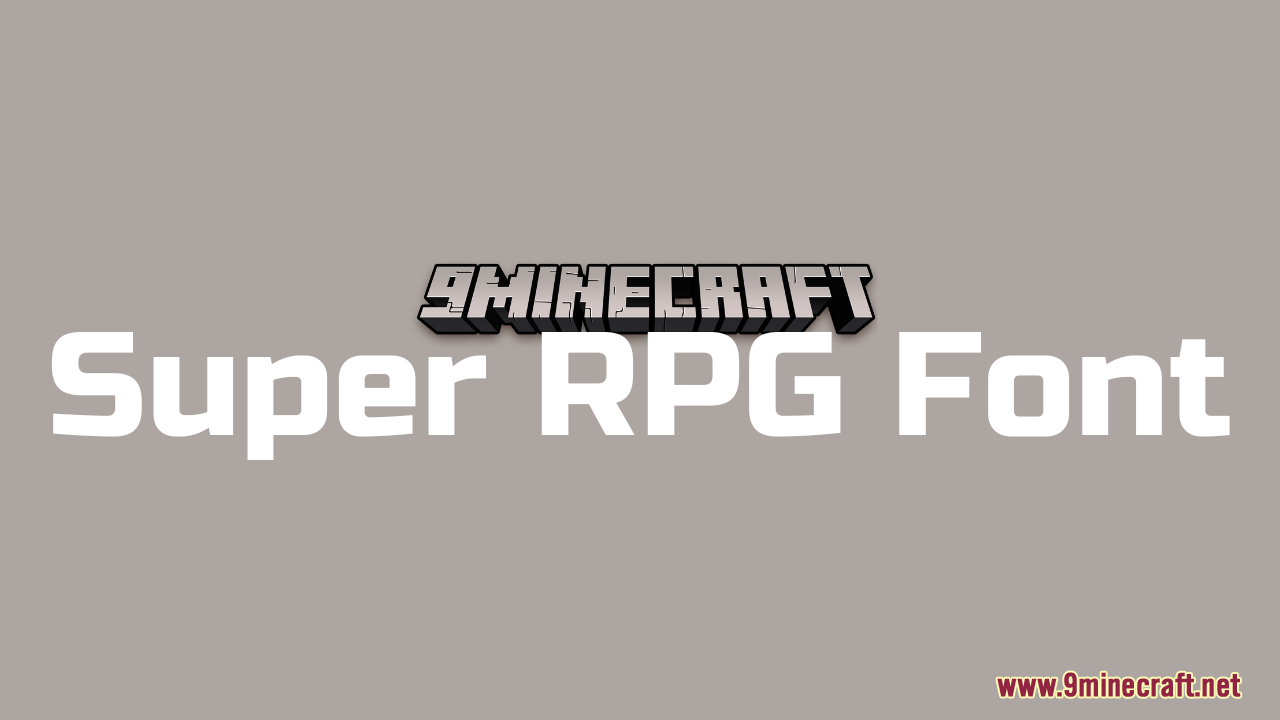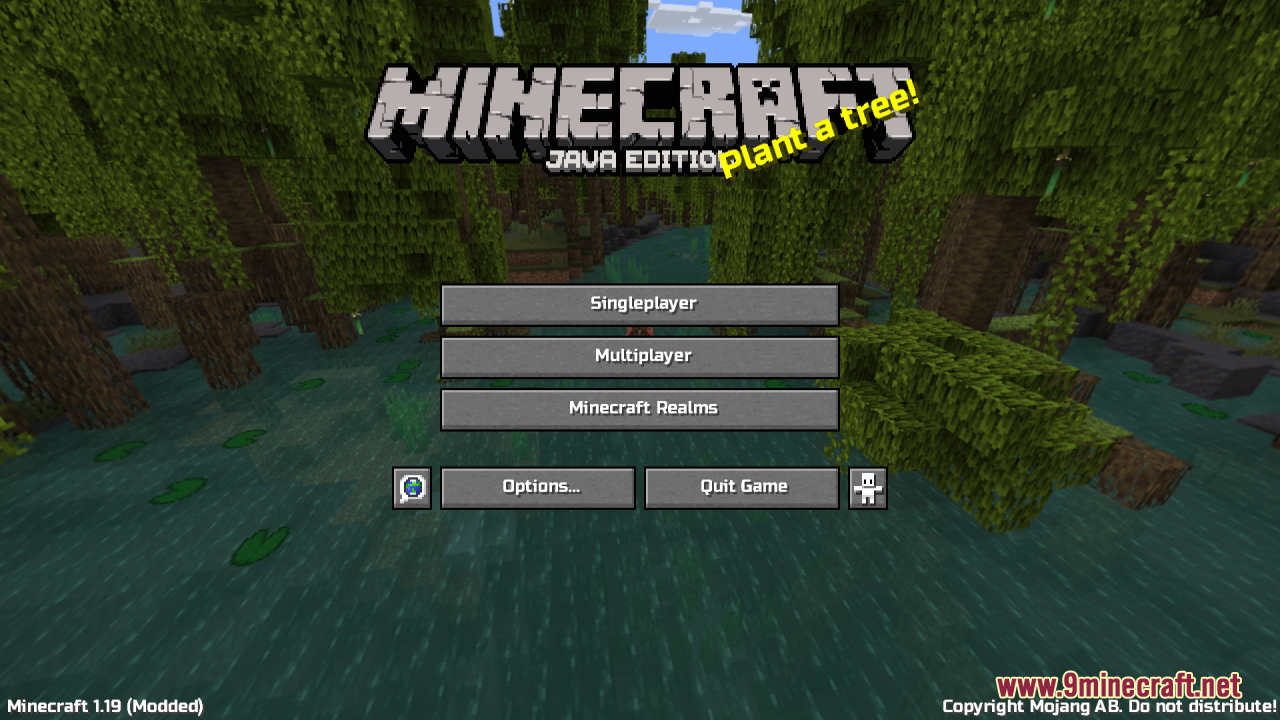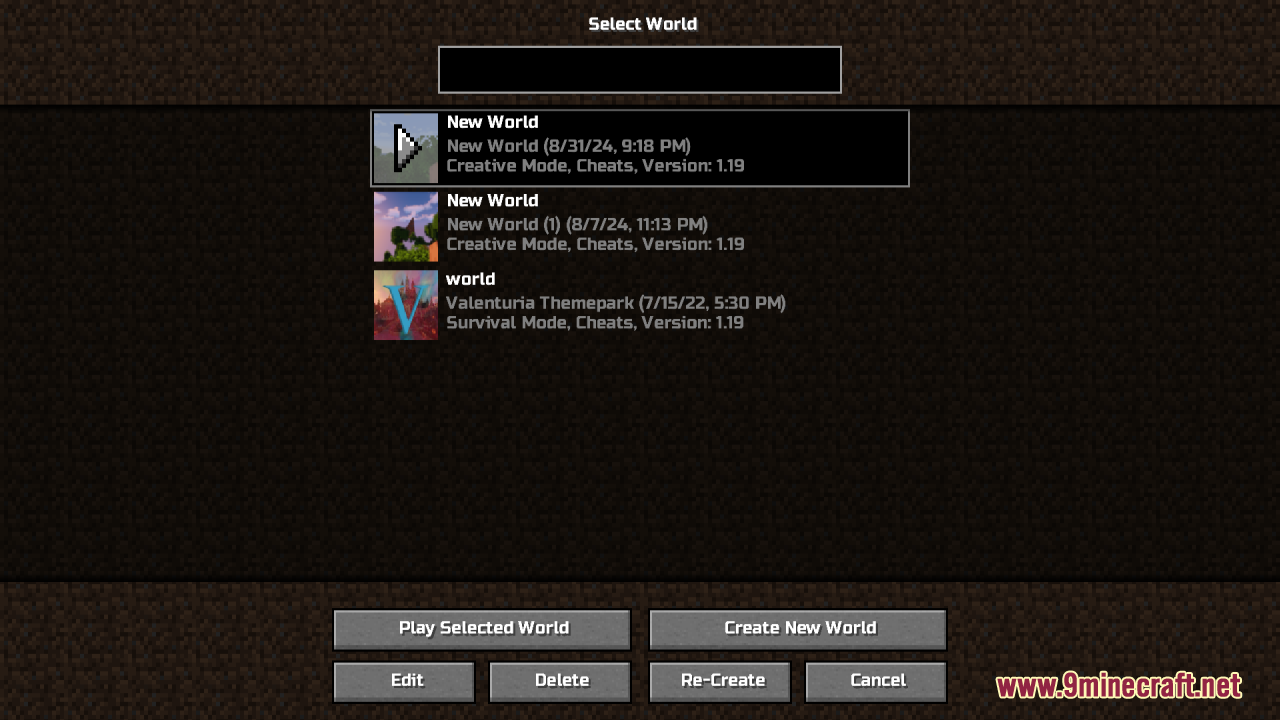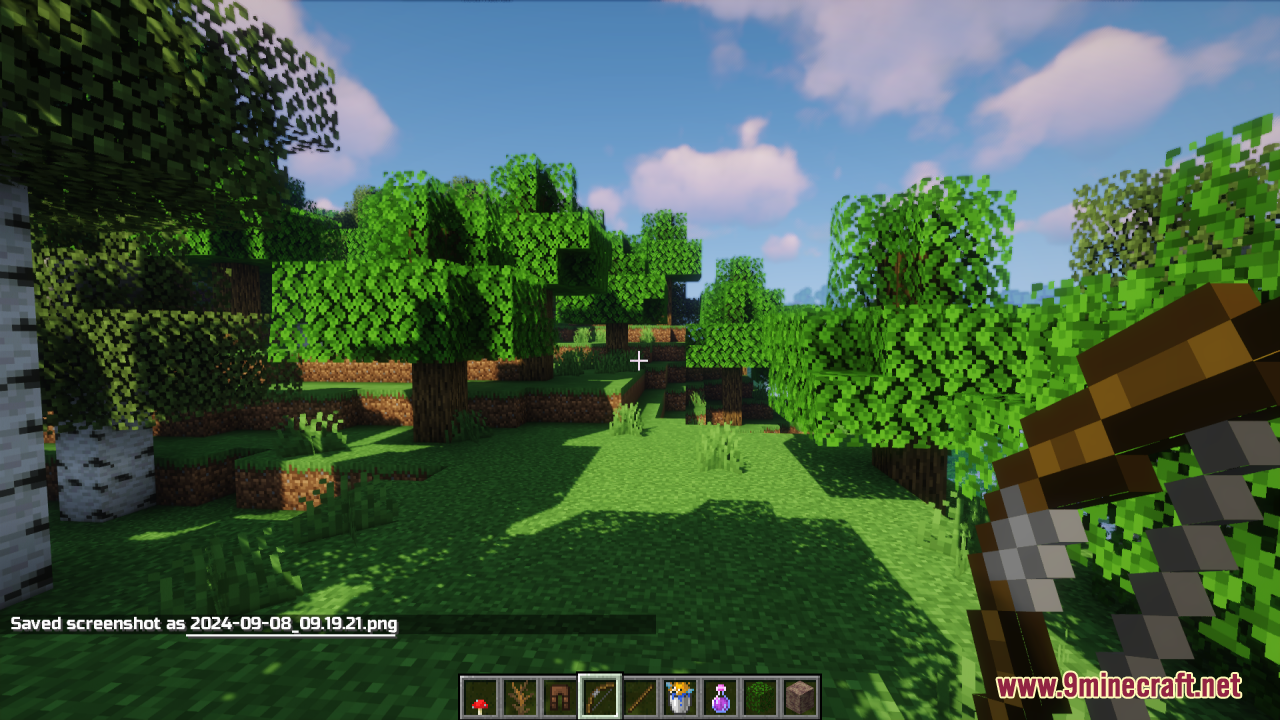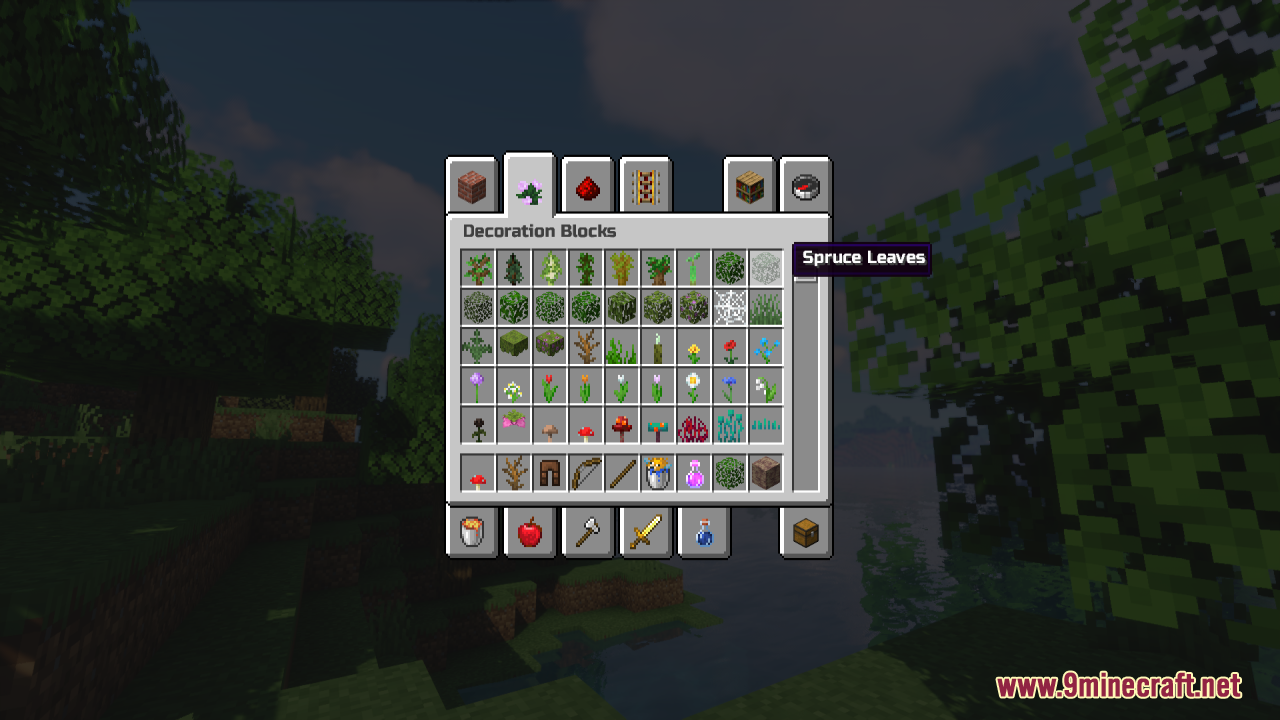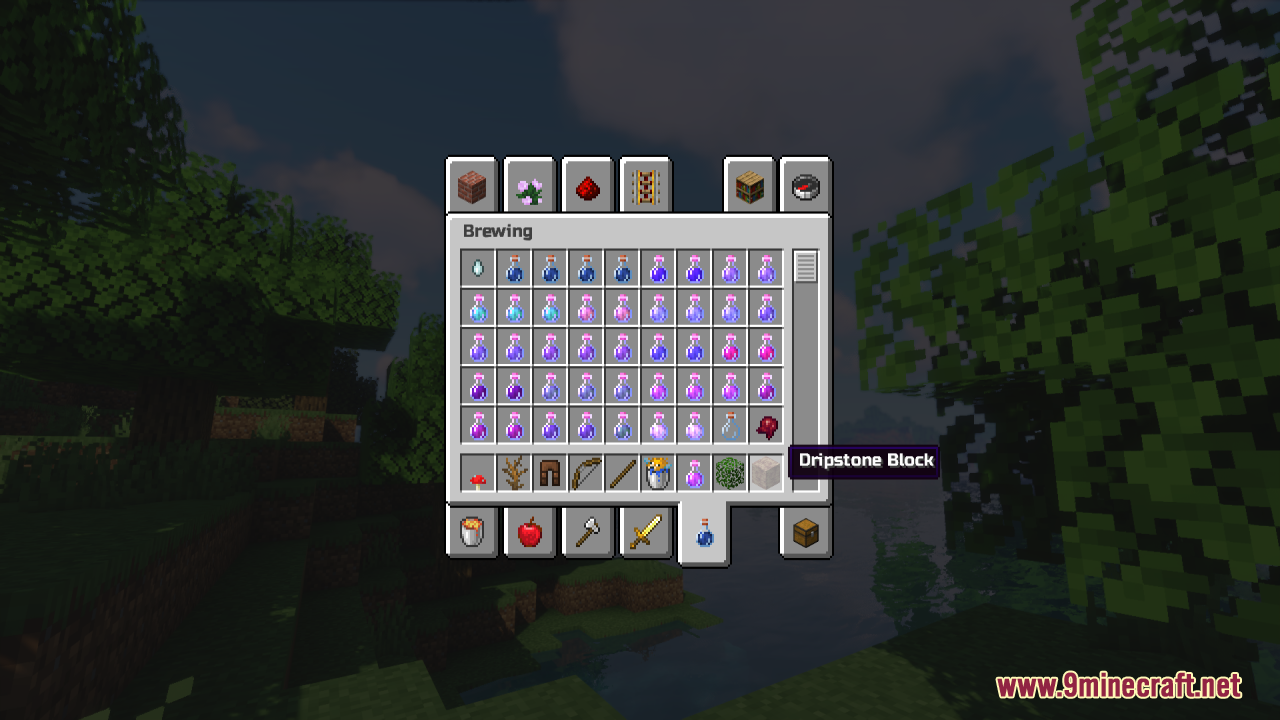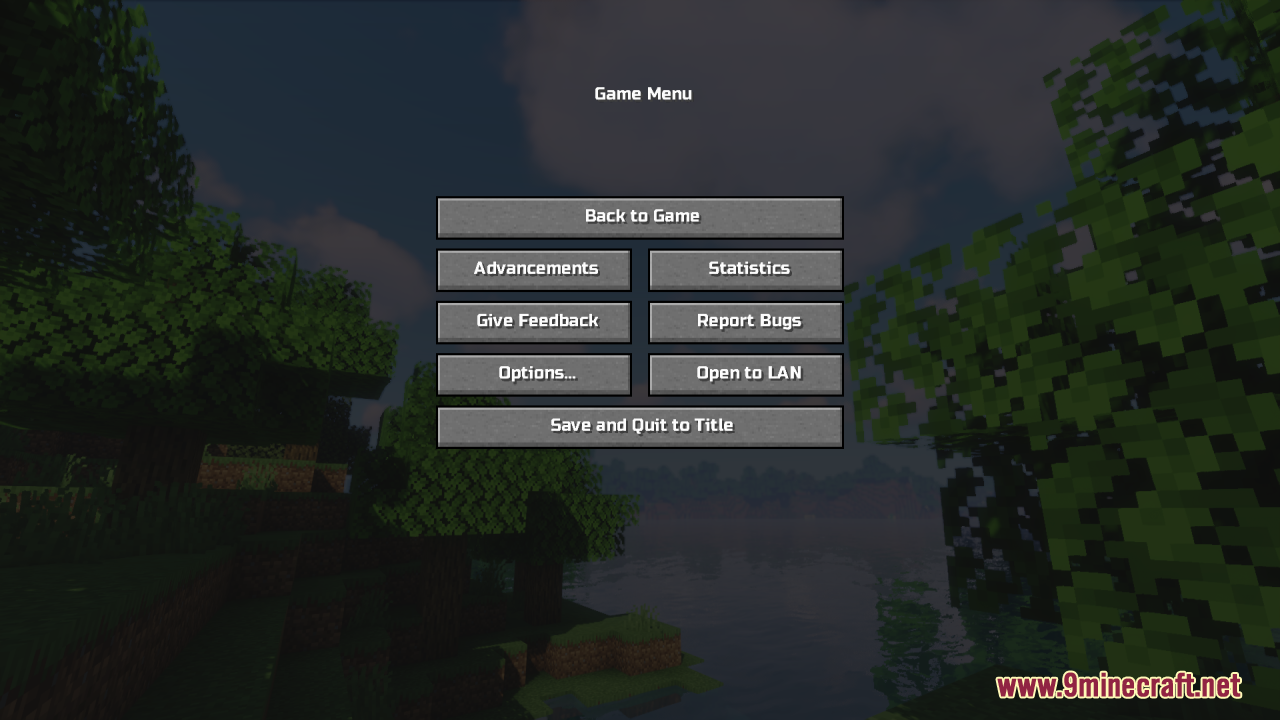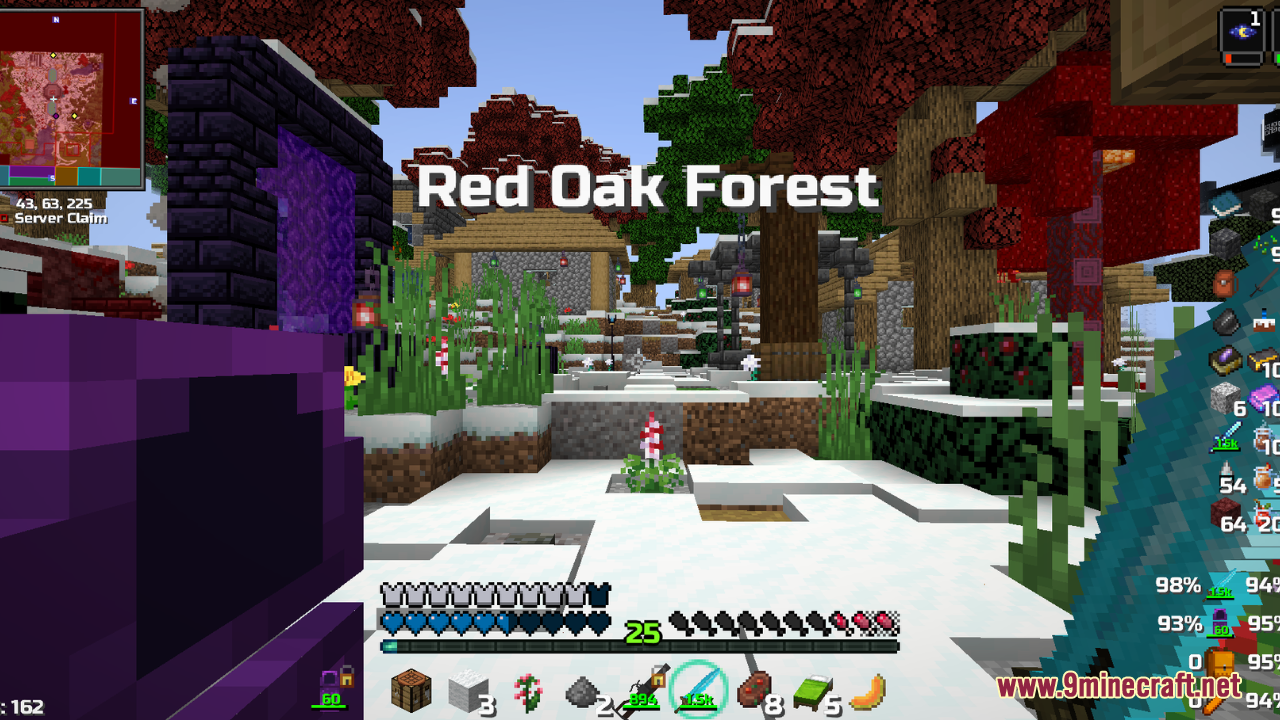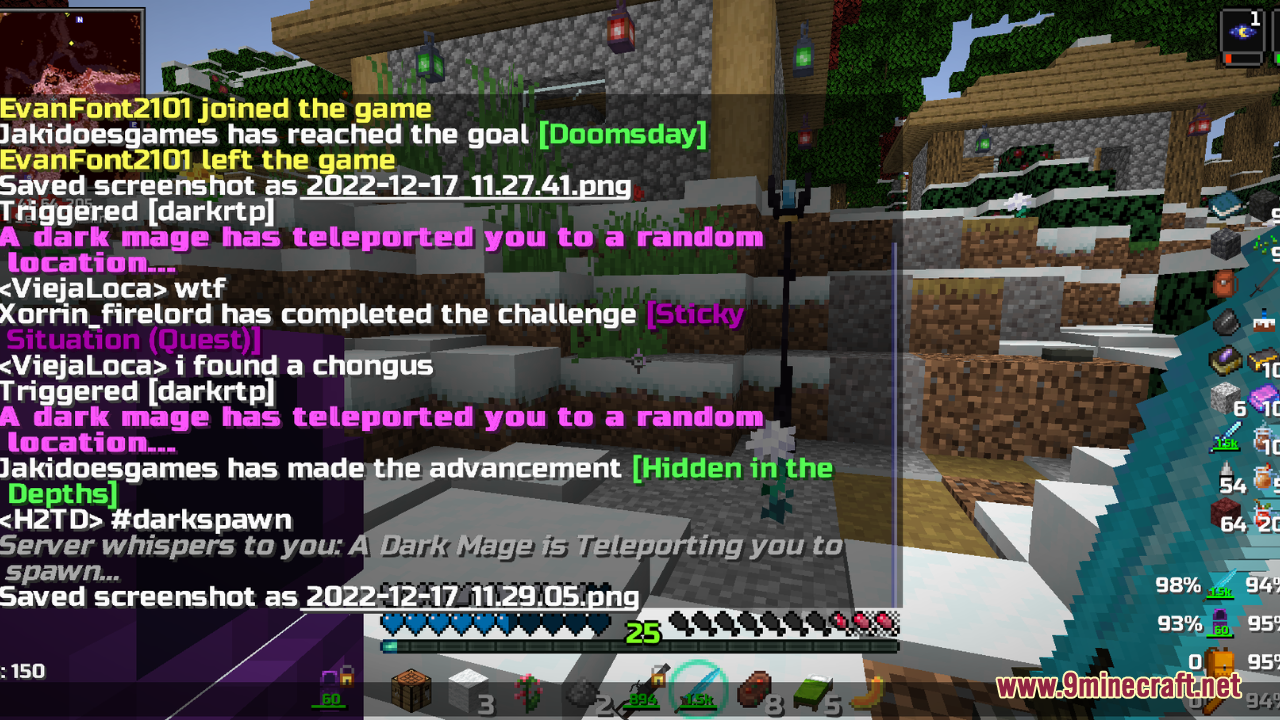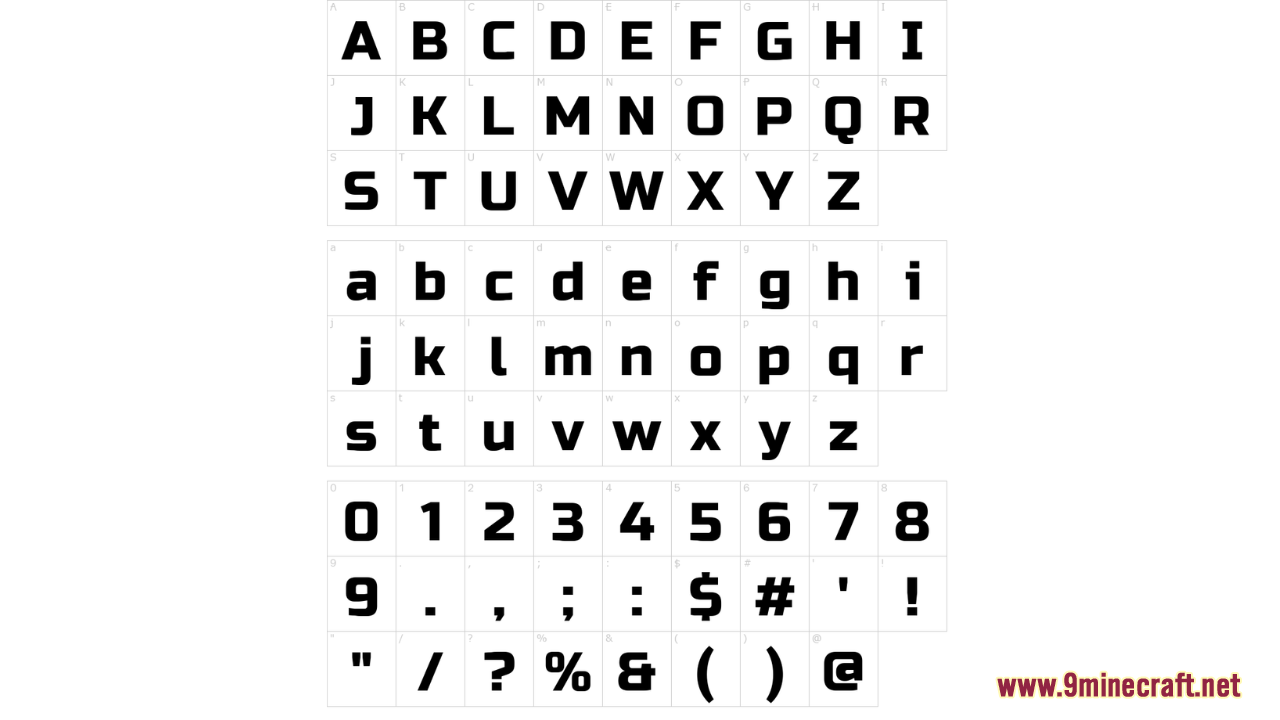
Super RPG Font Resource Pack (26.2, 1.20.1) – Texture Pack
Super RPG Font Resource Pack takes your vanilla Minecraft experience to the next level by replacing the default font with a sleek, modern, and RPG-themed typeface. The font is designed to be both visually appealing and easy to read, making it an ideal choice for players who want to enhance their in-game menus, chat, and inventory screens. Its smooth, rounded edges give it a unique character while maintaining the clarity needed for quick reading during intense gameplay.